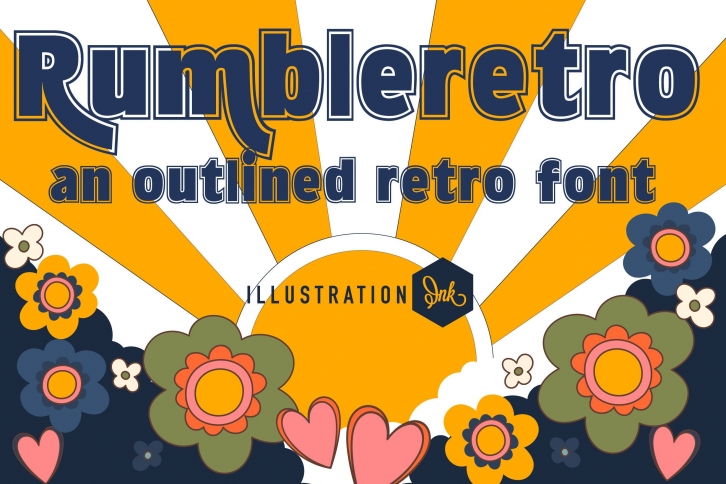
Rumbleretro is a cool, retro sans serif display font. This original look will appeal to a wide range of crafty ideas, from letterheads and titles to stationery.